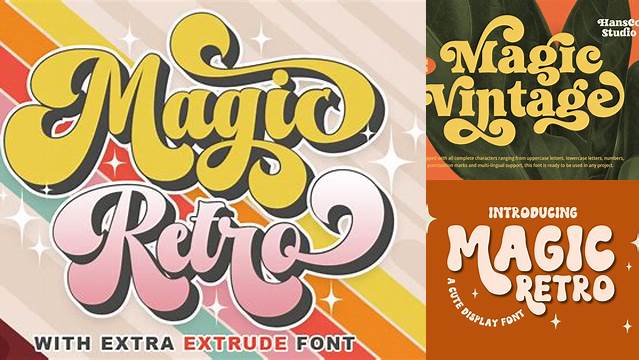
Magic Retro Font: Free Download For Your Designs
Are you looking for a font that can transport your designs back to the golden age of retro aesthetics? Look no further than Magic Retro Regular, a captivating typeface that effortlessly blends vintage charm with modern versatility. This font is a fantastic choice for designers, creatives, and anyone who wants to infuse their projects with a touch of nostalgia and style. In this comprehensive guide, we'll delve into the features, benefits, and applications of Magic Retro Regular, showcasing why it's an essential addition to your font library.
What Makes Magic Retro Regular So Special?
When it comes to selecting a font for your project, you want something that stands out, resonates with your audience, and effectively conveys your message. Magic Retro Regular excels on all these fronts. This font captures the essence of retro design with its distinctive characteristics, making it a go-to choice for various creative endeavors. So, what makes it so special, guys? Let's break it down:
- Unique Design: The design of Magic Retro Regular is inspired by vintage typography, featuring smooth curves, bold lines, and a playful character that evokes a sense of nostalgia. It’s like stepping into a time machine and grabbing the best bits of design history.
- Versatility: This font isn't just a one-trick pony. It's versatile enough to be used in a wide range of applications, from logos and branding to posters and website headers. Whether you're aiming for a classic 70s vibe or a modern twist on retro, Magic Retro Regular has got your back.
- Readability: Despite its retro flair, Magic Retro Regular maintains excellent readability. The letterforms are well-defined, ensuring that your text remains clear and legible across various sizes and formats. After all, what's the point of a cool font if nobody can read it?
Delving Deeper into the Design Elements
To truly appreciate the Magic Retro Regular font, let's dive deeper into its design elements. The font's retro inspiration is evident in its rounded terminals, slightly condensed letterforms, and overall friendly appearance. These features combine to create a typeface that feels both familiar and fresh.
- Rounded Terminals: The rounded ends of the strokes give the font a soft, approachable feel. This design choice harks back to the friendly, approachable typography of the mid-20th century.
- Condensed Letterforms: The slightly condensed letters contribute to the font's distinctive retro look. This characteristic also makes it ideal for headlines and titles, where space may be limited.
- Playful Character: Magic Retro Regular exudes a playful vibe that can add personality to your designs. It's the kind of font that makes you smile and think of good times.
The Emotional Impact of Retro Fonts
Fonts are more than just tools for displaying text; they evoke emotions and set the tone for your design. Retro fonts like Magic Retro Regular have a unique emotional impact, tapping into our collective nostalgia and sense of history. When you use a retro font, you're not just choosing a typeface; you're choosing a feeling.
- Nostalgia: Retro fonts instantly transport us back to the past, evoking memories of simpler times. This nostalgic quality can be incredibly powerful, making your designs more relatable and engaging.
- Warmth and Friendliness: The rounded shapes and soft lines of retro fonts create a sense of warmth and friendliness. This makes them perfect for projects that aim to convey a welcoming, approachable message.
- Uniqueness: In a world of sleek, modern fonts, a retro typeface can help your designs stand out. It's a way to add character and personality to your work, making it more memorable.
Where to Use Magic Retro Regular
Now that we've established what makes Magic Retro Regular so special, let's explore the various applications where this font can shine. Its versatility makes it a fantastic choice for a wide array of projects, both online and offline.
Branding and Logos
If you're looking to create a brand identity that's both timeless and unique, Magic Retro Regular is an excellent option. Its retro charm can help your brand stand out in a crowded marketplace, while its readability ensures that your logo remains clear and recognizable.
- Vintage-Inspired Brands: For businesses that want to evoke a sense of nostalgia or heritage, Magic Retro Regular is a perfect fit. Think coffee shops, barber shops, or vintage clothing stores.
- Creative Agencies: If your agency specializes in design that's a bit offbeat and stylish, this font can help communicate your creative flair.
- Startups: A retro font can give a new company a distinctive identity, helping it to create a memorable first impression. It's all about making your mark, right?